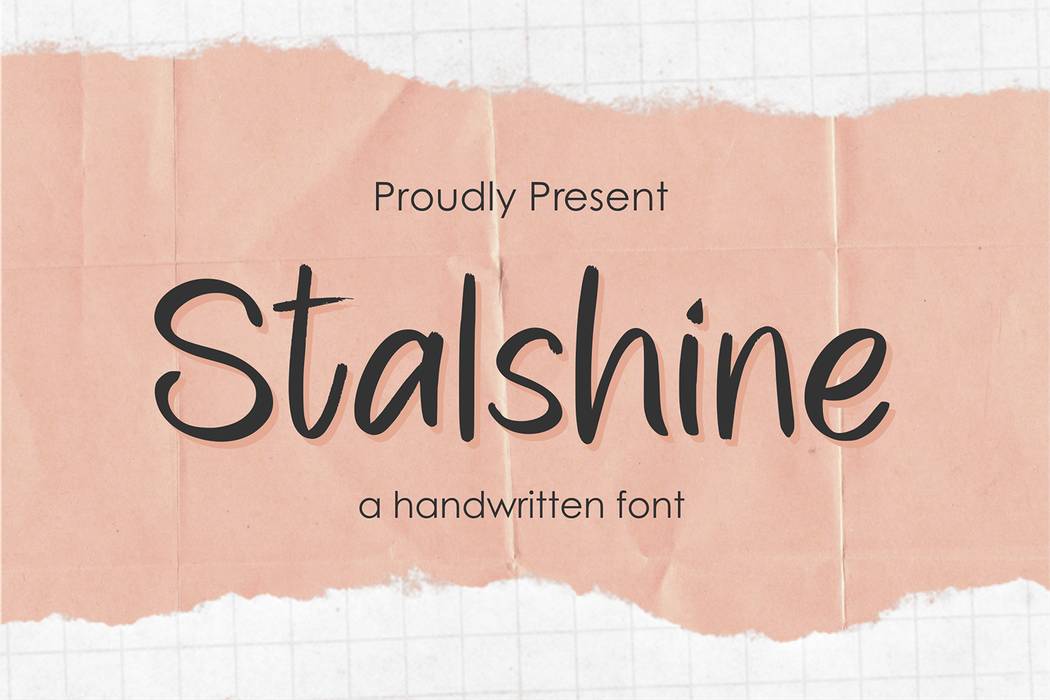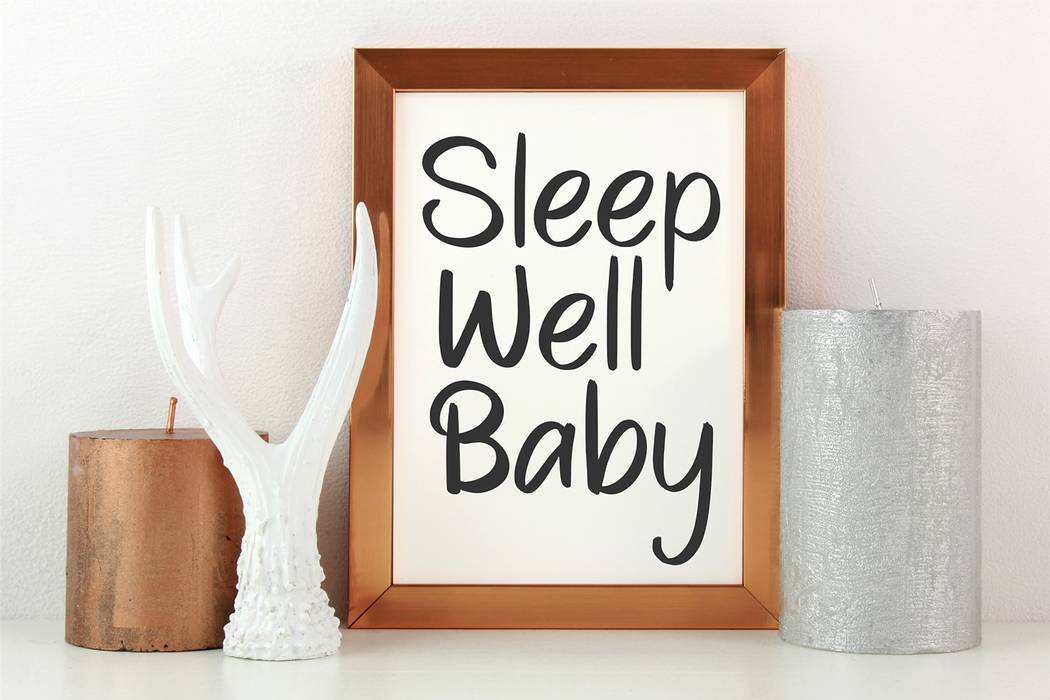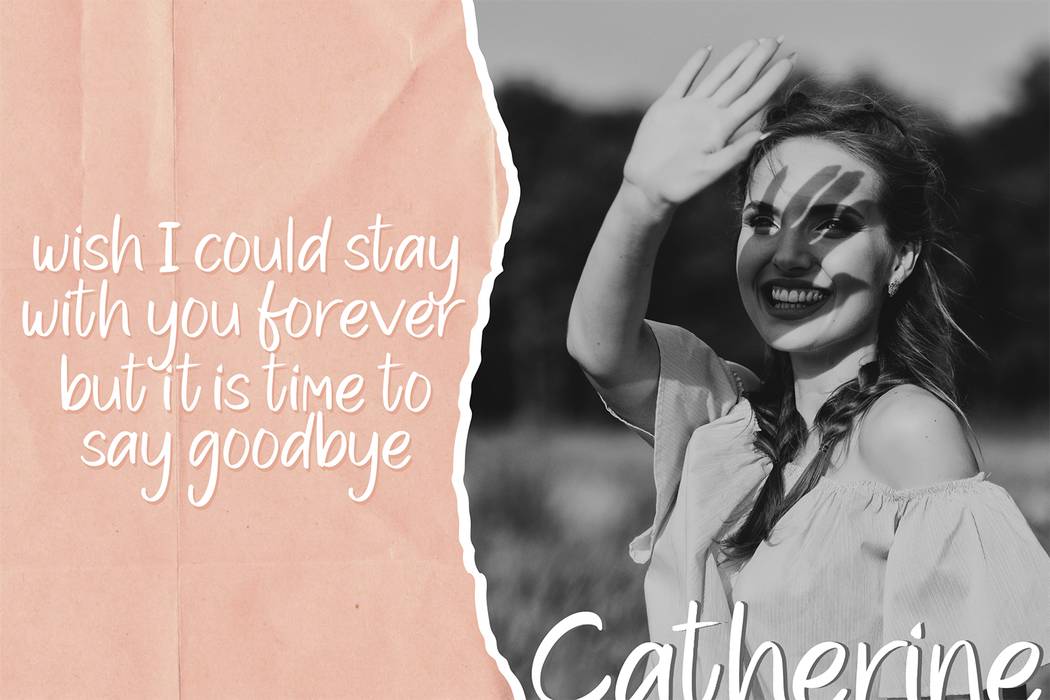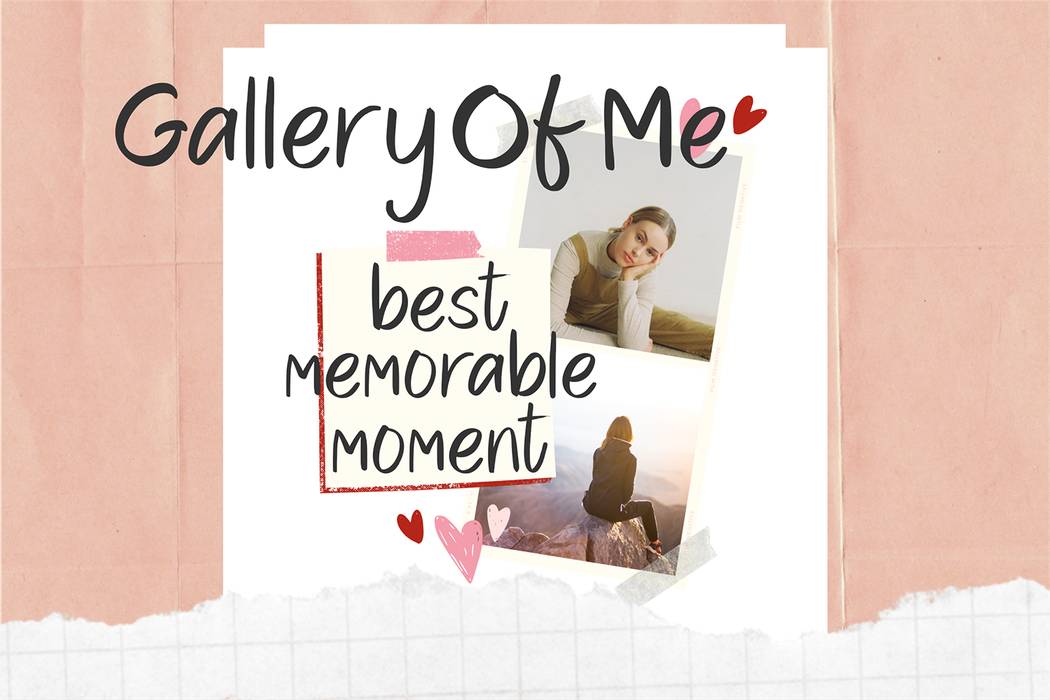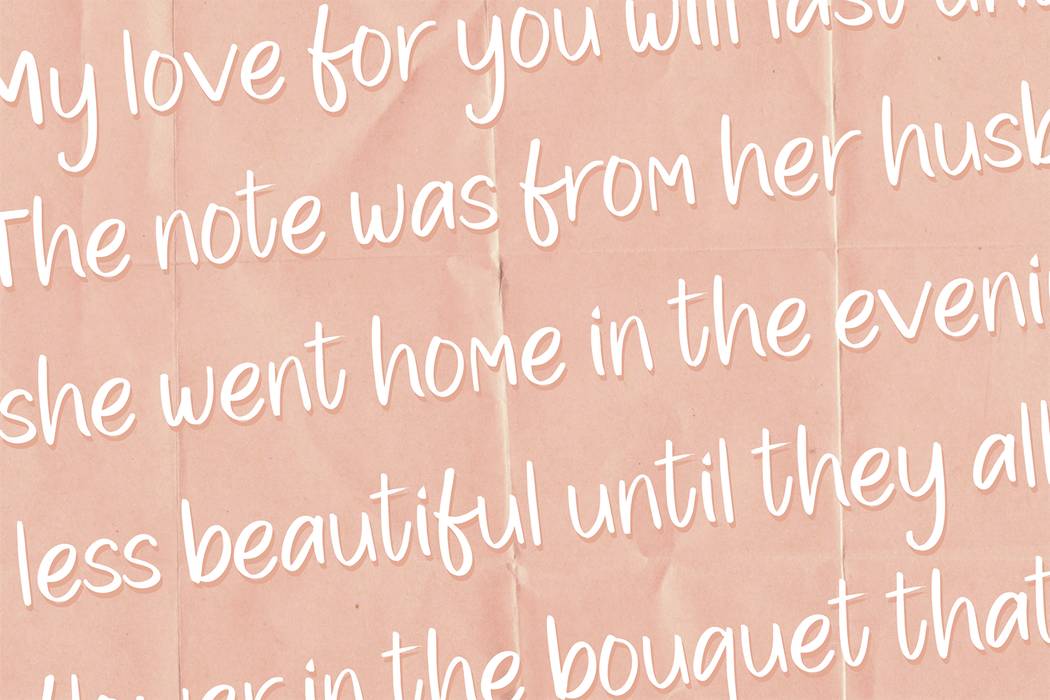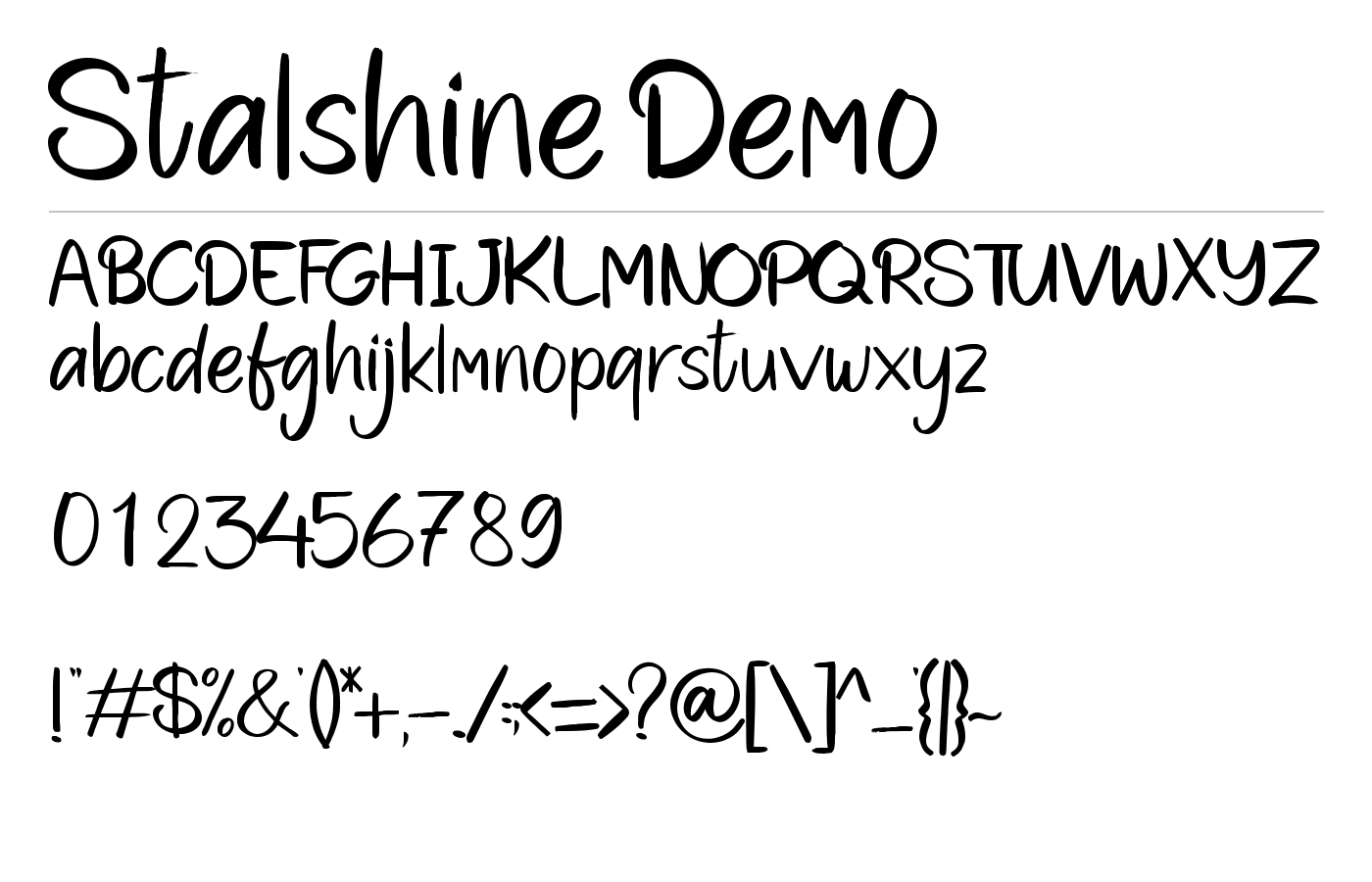
Stalshine Font is a friendly and casual handwritten sans serif typeface with a light to regular weight and a slightly condensed width. Its tall x-height and playful letterforms with uneven stroke endings give it an approachable and informal feel, making it perfect for creative projects, children’s content, or personal branding where warmth and personality are key. This font works well in headlines, invitations, and social media graphics, adding a charming, hand-crafted touch to any design.
Stalshine Font
About Stalshine Font